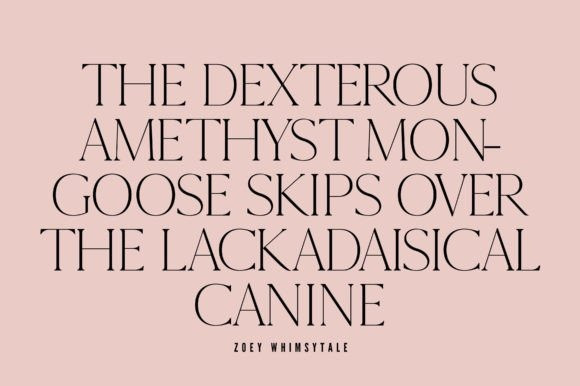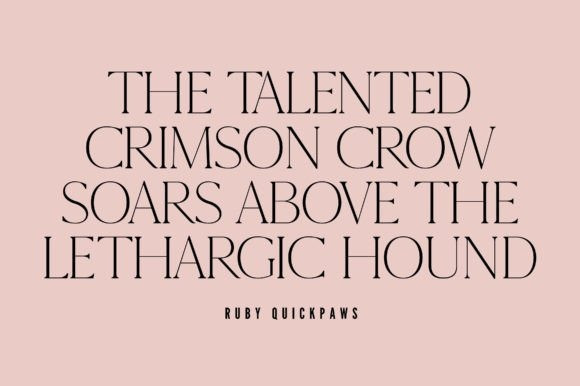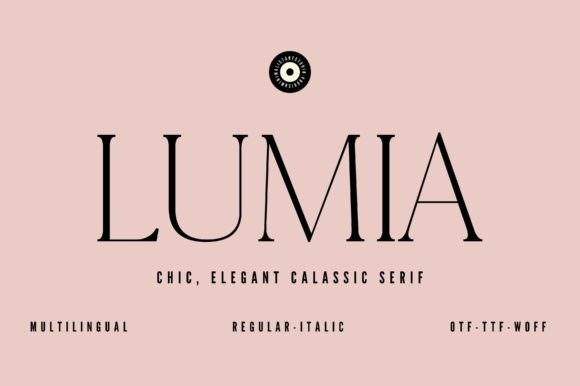
Lumia Font
Lumia Font, crafted for the modern aesthetic, this typeface effortlessly combines the timeless appeal of serifs with a minimalist twist, resulting in a font that’s both delicate and chic.